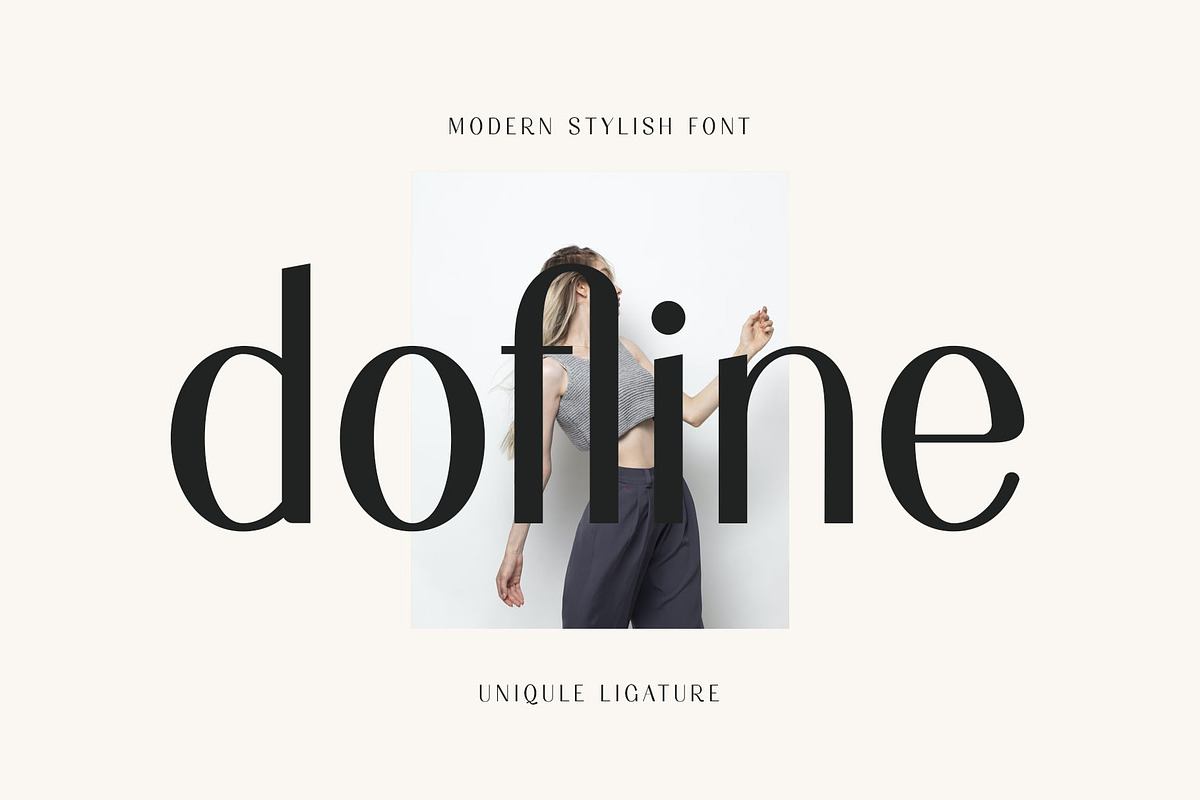
dofline Sans Serif Font Free Download
Dofline Sans Serif Font Free Download
Dofline Sans Serif Font Free Download is a modern and clean typeface that combines simplicity with elegance. Designed with geometric precision, this font is perfect for branding, web design, social media graphics, and editorial layouts. Its versatile style and legibility make it ideal for both display text and body copy, offering a professional and minimalistic aesthetic.
With its balanced proportions and smooth letterforms, Dofline brings a sleek, contemporary look to your projects. Whether you're creating a modern logo, designing a website, or working on a corporate presentation, Dofline adds sophistication and clarity to your typography.